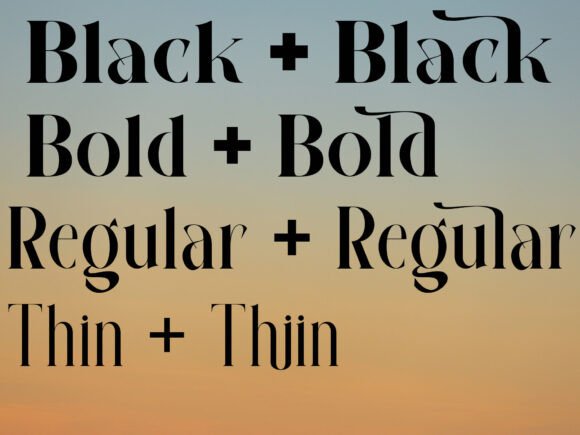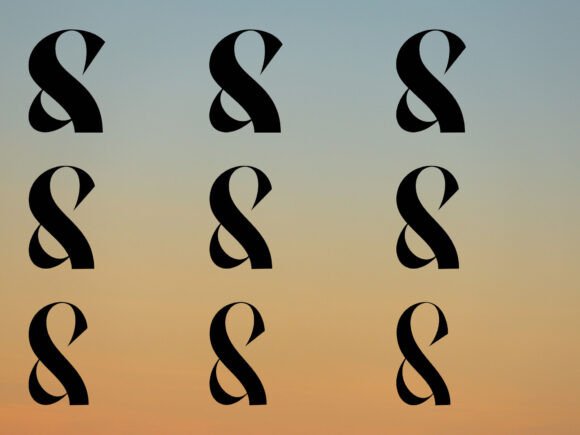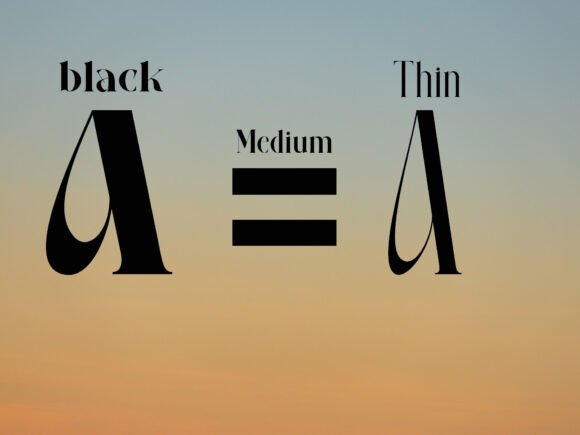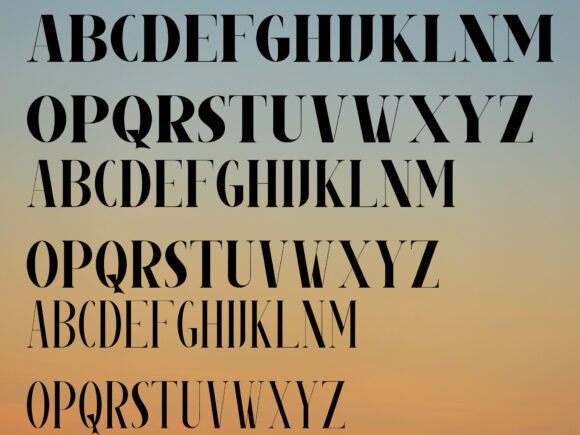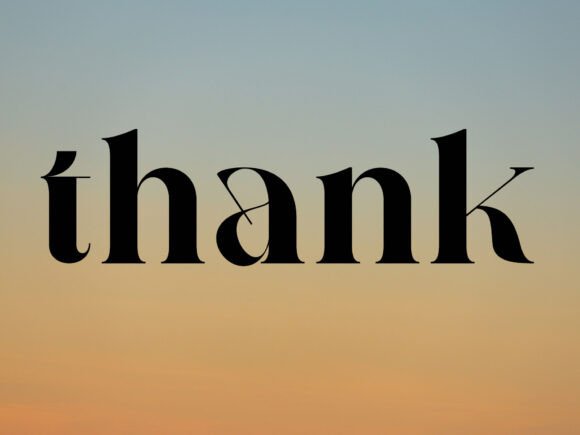
Introducing Abika Font: A Geometric Typeface for Modern Design
In the world of typography, a good font can make all the difference in a design project. For designers and crafters looking for a simple yet elegant solution, Abika Font is an excellent choice. This geometric family typeface is available in nine thicknesses, making it a versatile and reliable option for a wide range of applications.
What is Abika Font?
Abika Font is a modern font family designed with simplicity and elegance in mind. Its geometric structure gives it a clean and minimalist look, making it perfect for headlines, titles, brands, posters, packaging, and logos. The font’s versatility is further enhanced by its nine thicknesses, allowing designers to choose the perfect weight to suit their design needs.
Key Features of Abika Font
- Geometric Structure: Abika Font’s geometric design gives it a modern and sleek look, making it ideal for contemporary design projects.
- Nine Thicknesses: The font family is available in nine different thicknesses, providing designers with a range of options to suit their design requirements.
- Simple and Elegant: Abika Font’s simple and elegant design makes it perfect for a wide range of applications, from headlines and titles to logos and packaging.
- Highly Versatile: The font’s versatility makes it suitable for various design projects, including posters, branding, and advertising materials.
Use Cases for Abika Font
Abika Font is an excellent choice for various design projects, including:
- Headlines and Titles: The font’s bold and geometric structure makes it perfect for headlines and titles that require a modern and eye-catching look.
- Branding and Logos: Abika Font’s simplicity and elegance make it an excellent choice for branding and logo design, helping to create a strong and recognizable visual identity.
- Posters and Advertising: The font’s versatility and range of thicknesses make it suitable for posters and advertising materials, allowing designers to create visually appealing and effective designs.
- Packaging: Abika Font’s clean and minimalist design makes it perfect for packaging design, helping to create a modern and sophisticated look.
Benefits of Using Abika Font
By choosing Abika Font for your design project, you can benefit from:
- Improved Readability: The font’s clear and geometric structure ensures excellent readability, making it perfect for designs that require a high level of legibility.
- Enhanced Visual Appeal: Abika Font’s simplicity and elegance can enhance the visual appeal of your design, making it more engaging and effective.
- Flexibility: The font’s nine thicknesses provide designers with the flexibility to choose the perfect weight to suit their design needs, making it suitable for a wide range of applications.
| Author | Canden Meutuah |
Abika Font is an excellent choice for designers and crafters looking for a simple yet elegant geometric typeface. Its versatility, range of thicknesses, and modern design make it perfect for a wide range of applications, from headlines and titles to logos and packaging. By choosing Abika Font, designers can create visually appealing and effective designs that meet their needs and exceed their expectations.